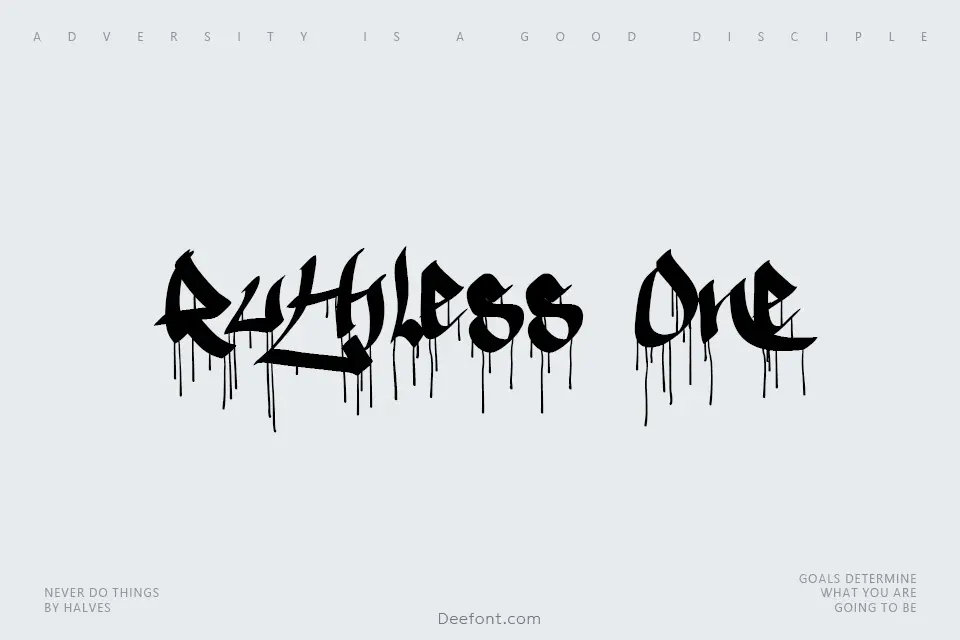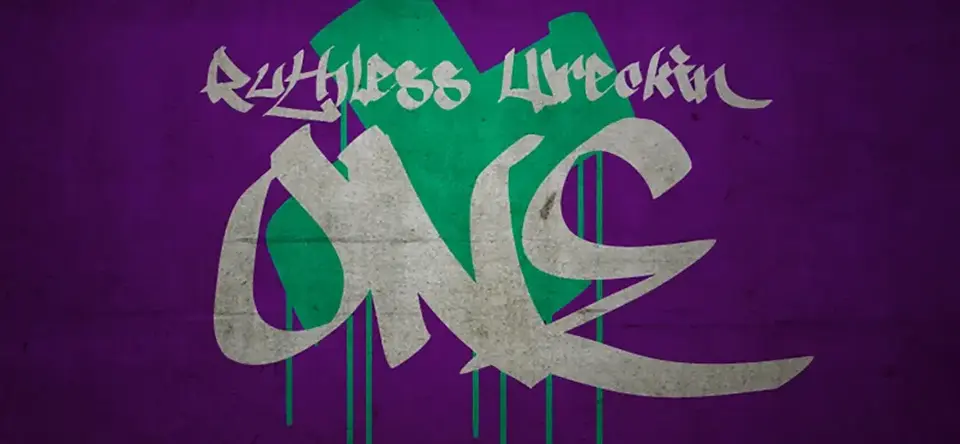
Ruthless One Font
Ruthless One is an audacious script and graffiti-inspired typeface that brings dynamic energy to creative projects. Designed with distinctive character and urban flair, this versatile font delivers bold, flowing letterforms perfect for eye-catching designs, posters, and artistic compositions. The two style variations offer flexibility for diverse creative needs, making it an excellent choice for designers seeking impactful visual communication with a contemporary edge.